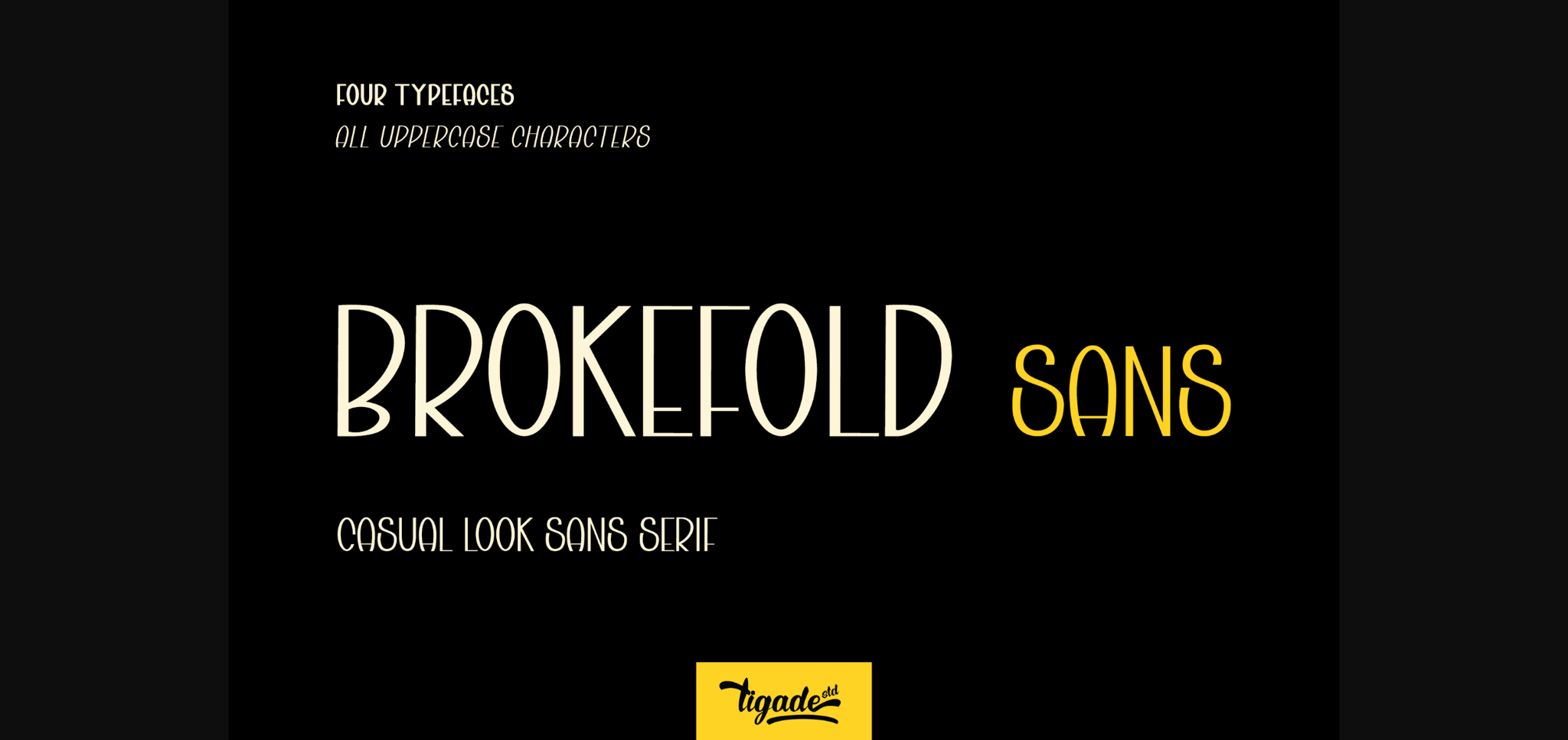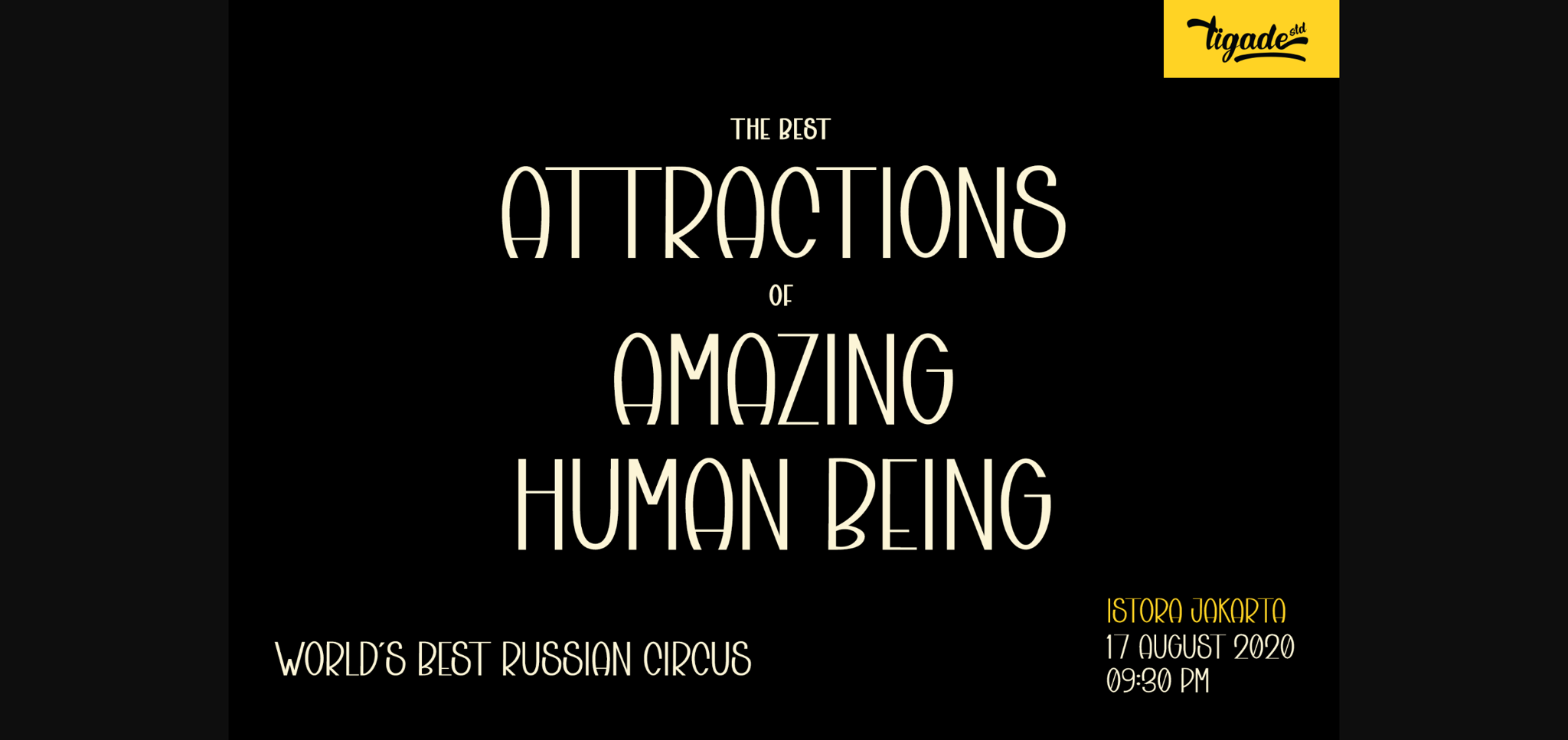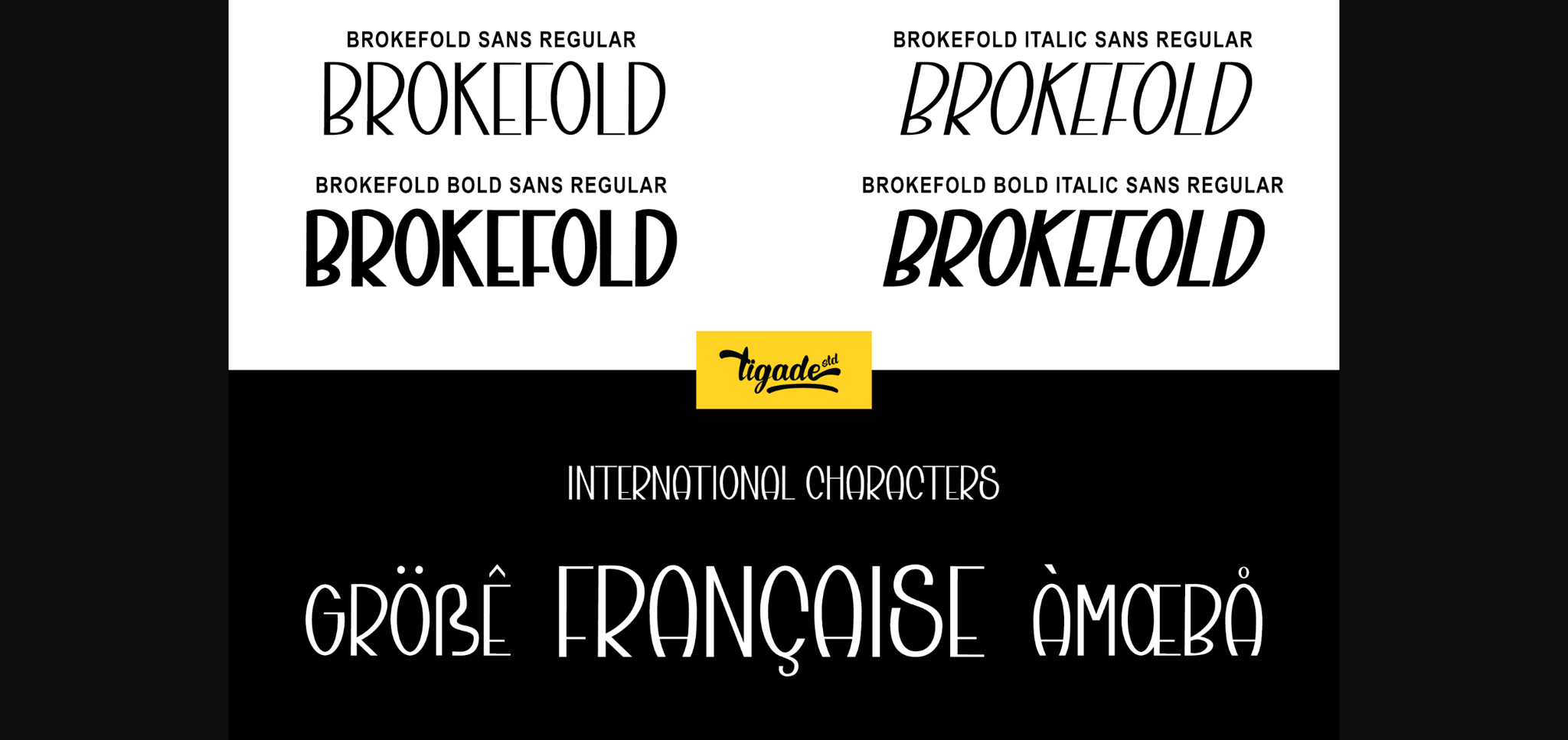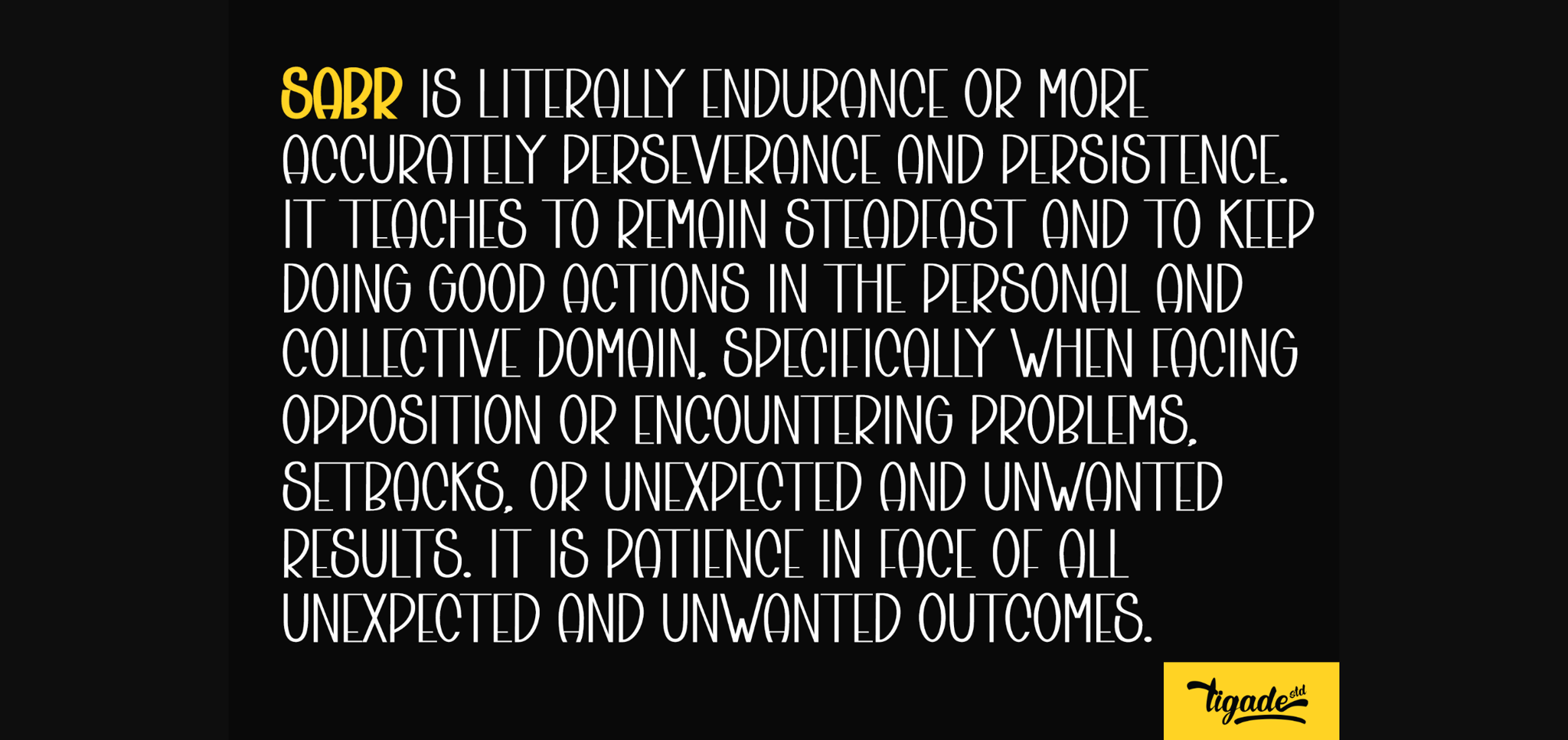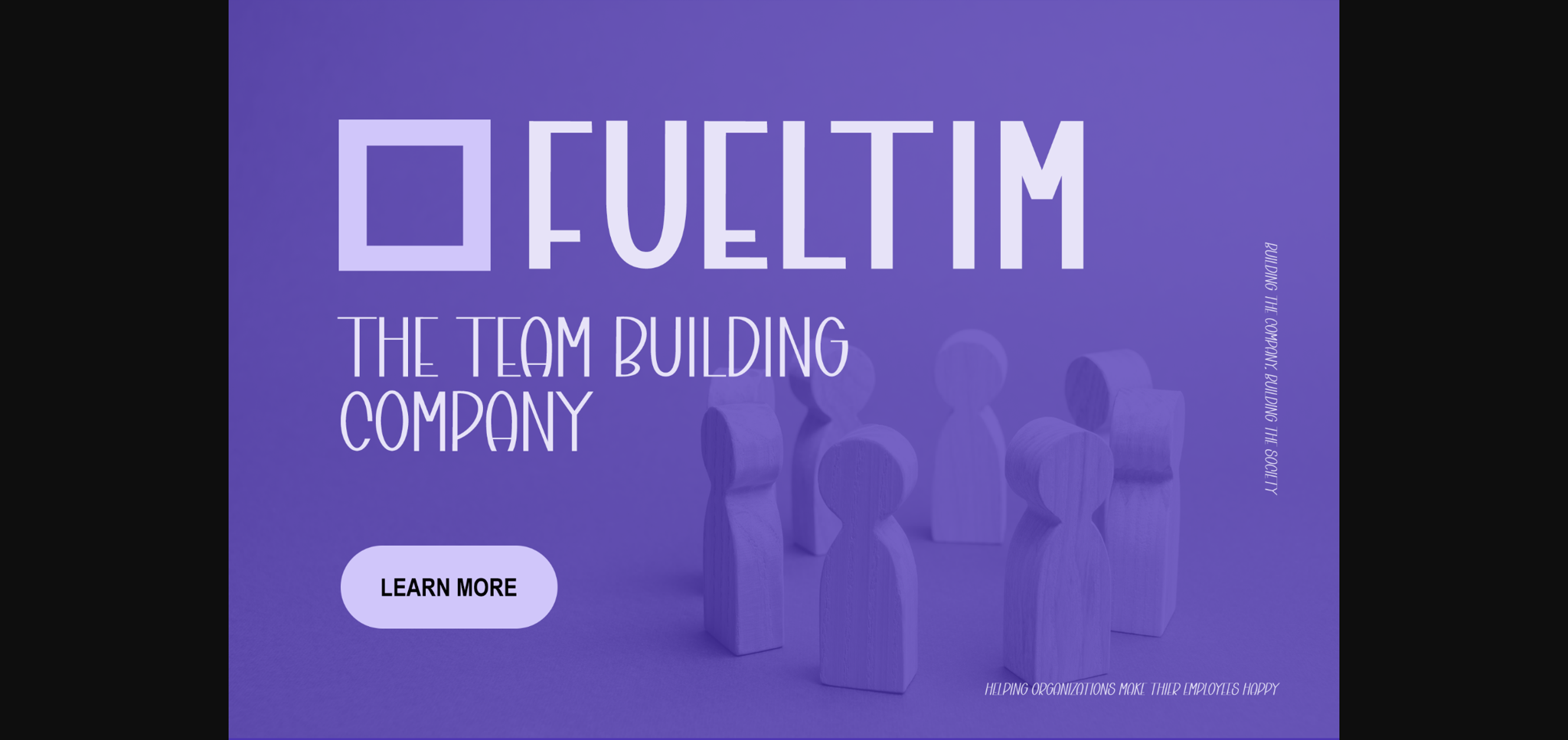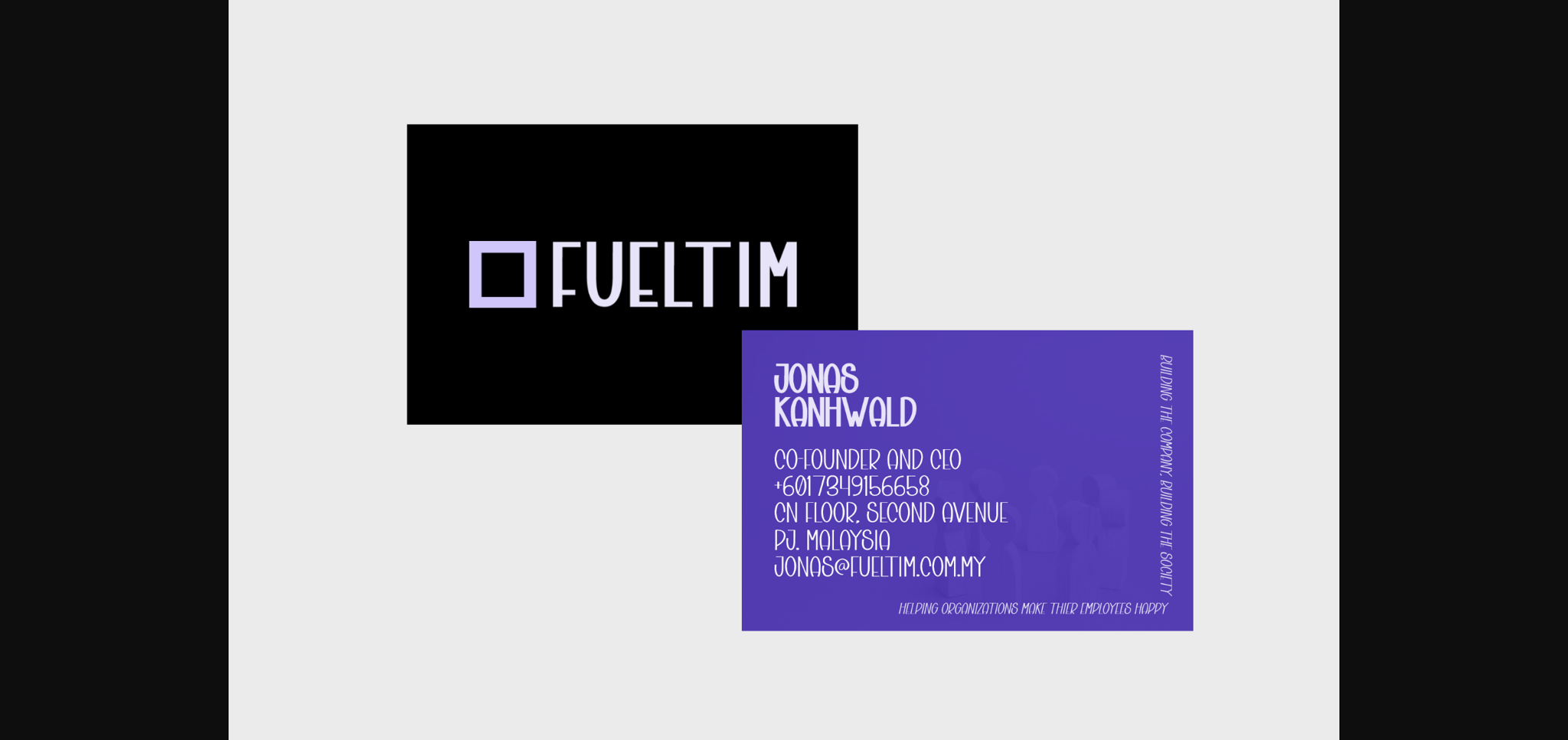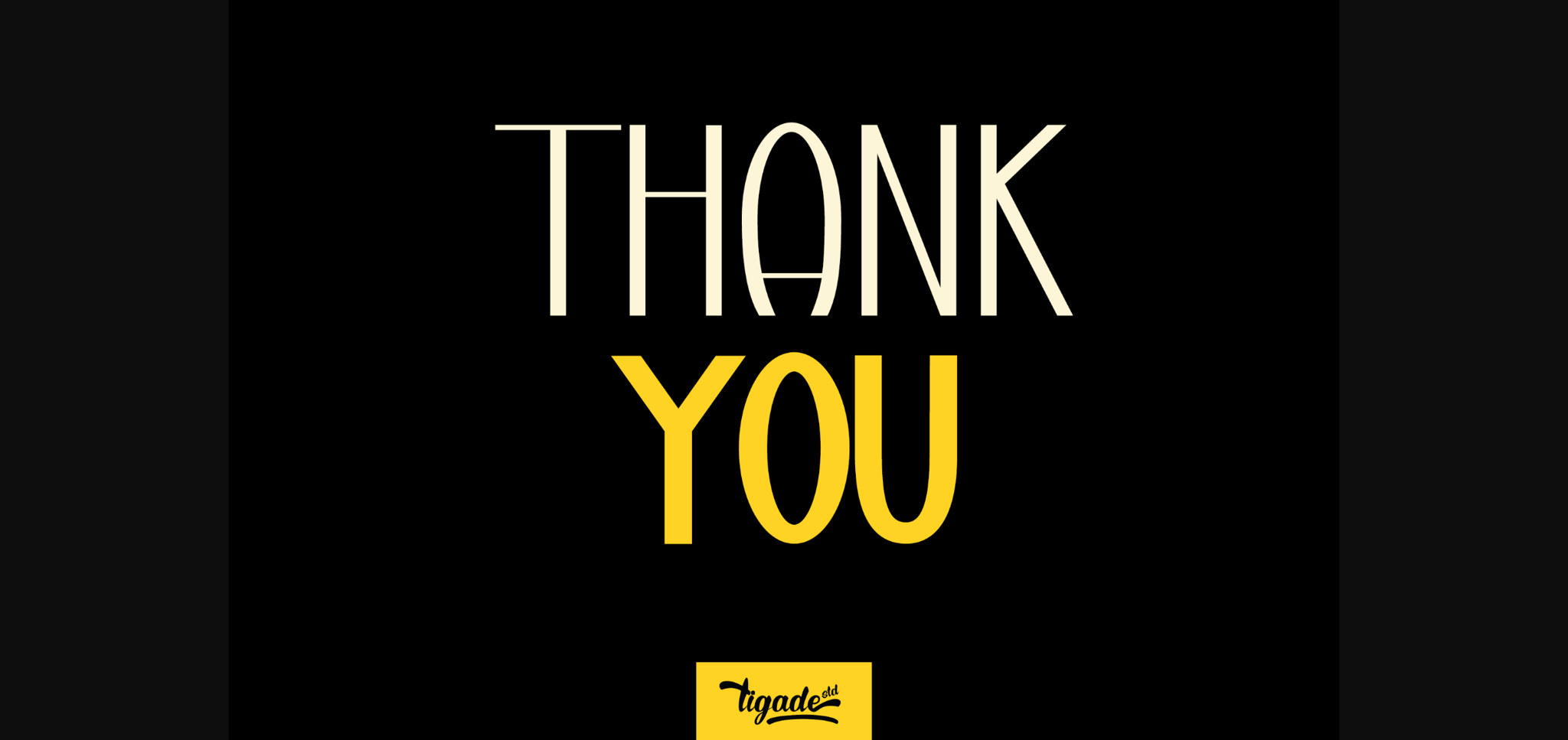
Brokefold Sans Font
About Brokefold Sans Font
Brokefold Sans, is a great sans serif font with a unique combination of rounded and strong edges. It’s perfectly suited for a wide variety of projects such as editorial to brand design, advertising, magazine layout and more.